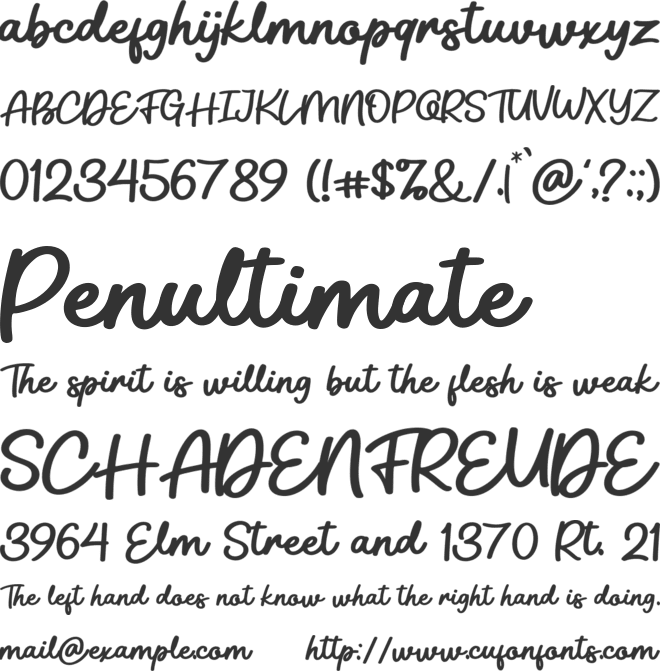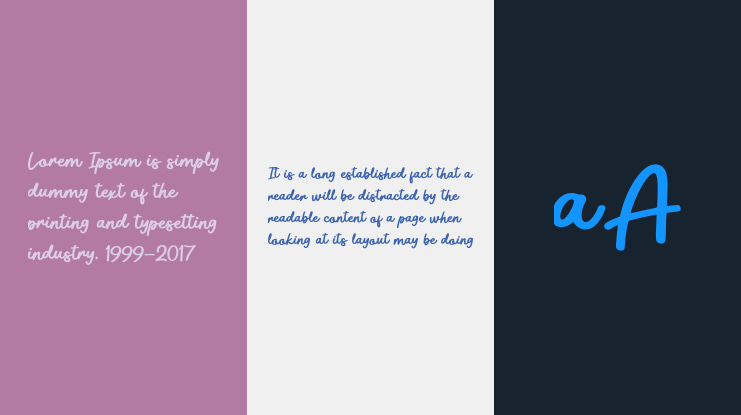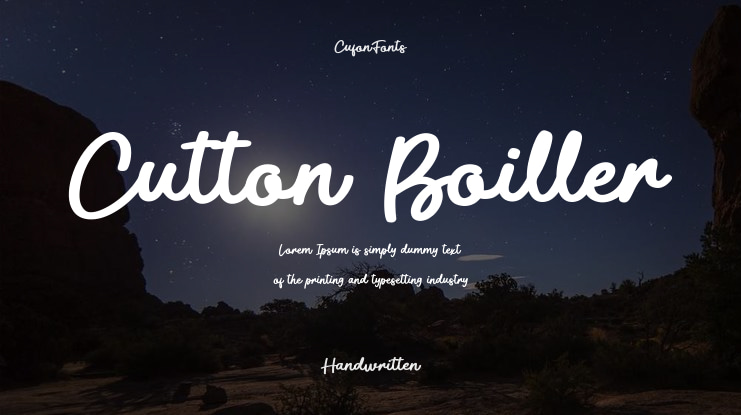
Cutton Boiller Font
INTRODUCING Cutton Boiller Handwritten Font
Cutton Boiller Handwritten Font, a designed to add a dash of whimsy and a whole lot of charm to everything you create